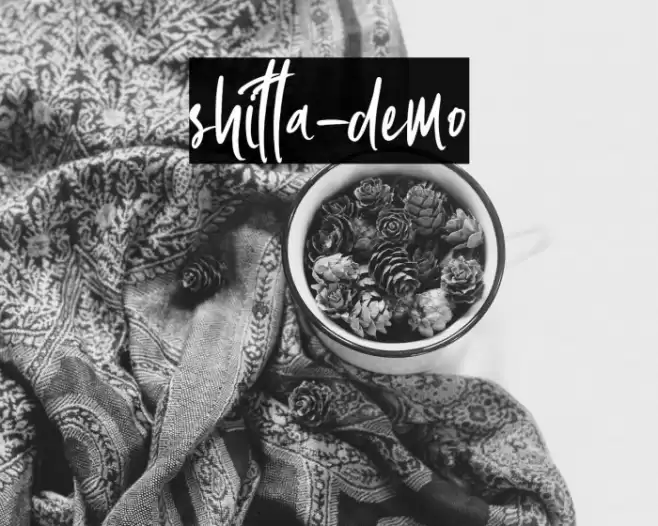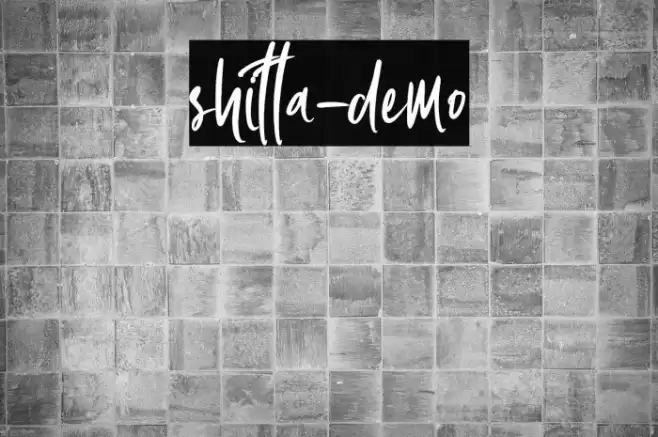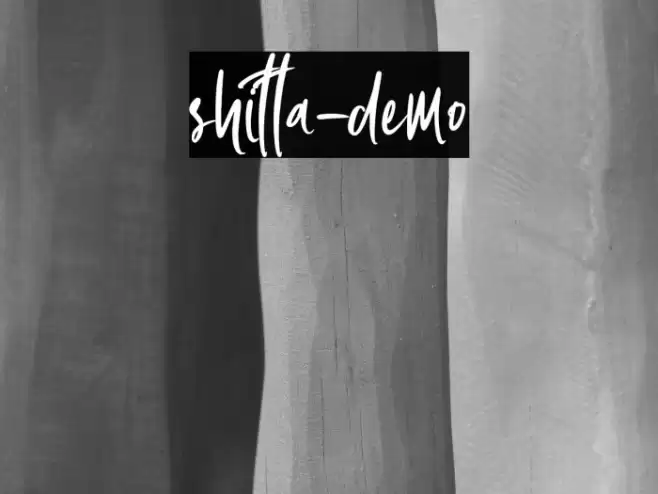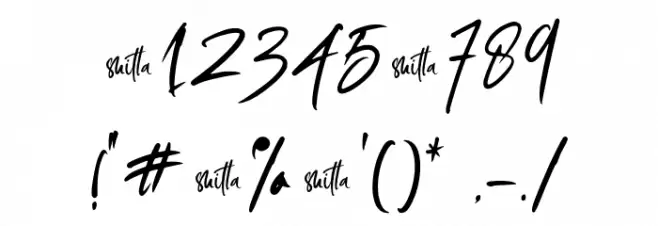
shitta-demo Font
shitta-demo Description
This font features a dynamic and expressive handwritten style, characterized by its fluid and cursive strokes. The uppercase letters are bold and sweeping, with an artistic flair that suggests movement and energy. The lowercase letters maintain a consistent flow, complementing the uppercase with their slightly more compact form. Numbers and special characters are crafted with the same attention to detail, ensuring a cohesive look across all elements. The overall appearance is both elegant and casual, making it suitable for a variety of creative projects.
A dynamic and expressive handwritten font with fluid, cursive strokes from Script fonts.